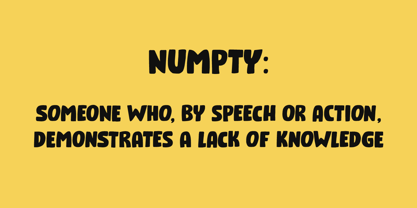
Numpty
by Hanoded
About Numpty Font Family
Numpty is a word of Scottish origin and means ‘someone who, by speech or action, demonstrates a lack of knowledge’. I use this word quite often (as this world, unfortunately, seems to be full of numpties). And guess what? Now you know what it means, you can use it too! Hooray! Numpty is a fat, rounded display font. A little uneven, a little weird, but with enough panache to make your designs stand out.